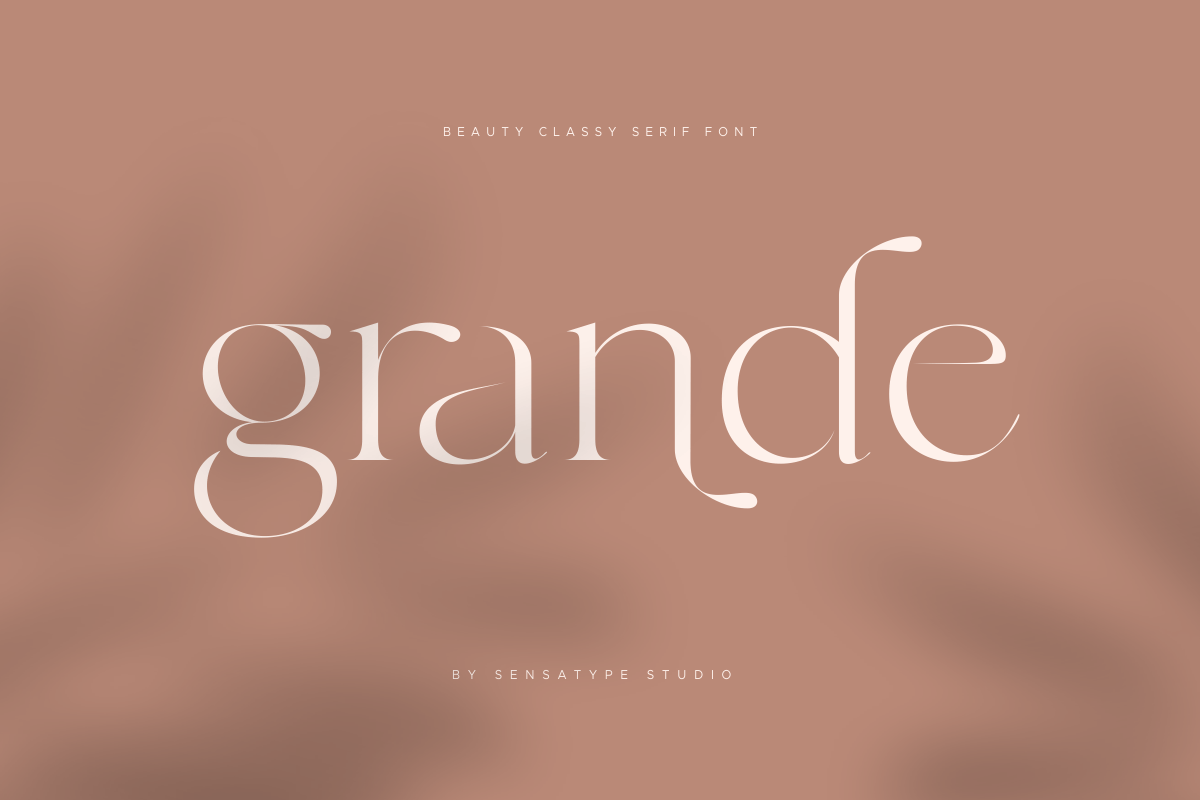
Grande
-Beauty Classy Serif Font
Grande - Beauty Classy Serif Font
Grande is an elegant beauty serif font designed with modern feminine characteristics and classy letterforms. Featuring refined details, decorative elements, and a sophisticated visual style, this typeface helps designers create premium and memorable brand identities.
Perfect for beauty branding, logo design, perfume packaging, fashion magazines, wedding invitations, book covers, and luxury editorial projects. Grande combines a feminine aesthetic with elegant serif structures to create a timeless and stylish appearance.
With unique alternate characters and decorative letter variations, Grande gives designers more flexibility to create distinctive logos, wordmarks, and premium typography compositions.